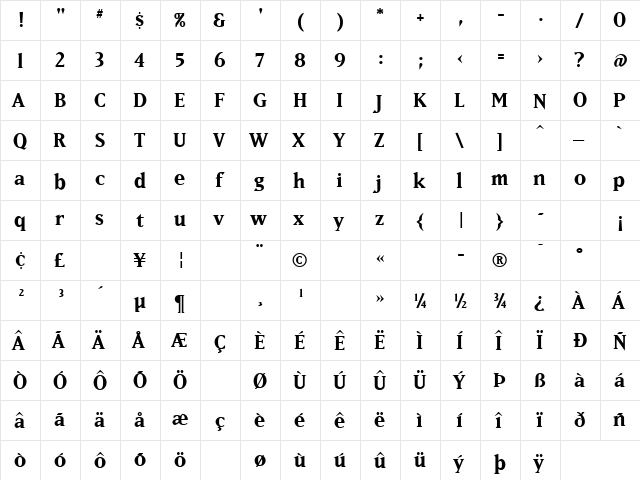
MatrixBoldLining Bold
Design Context for MatrixBoldLining Typeface
MatrixBoldLining offers clean, dependable letterforms without strong stylistic allegiance, making it a practical choice for designers who need flexibility. Its bold stroke weight gives it real presence on the page.